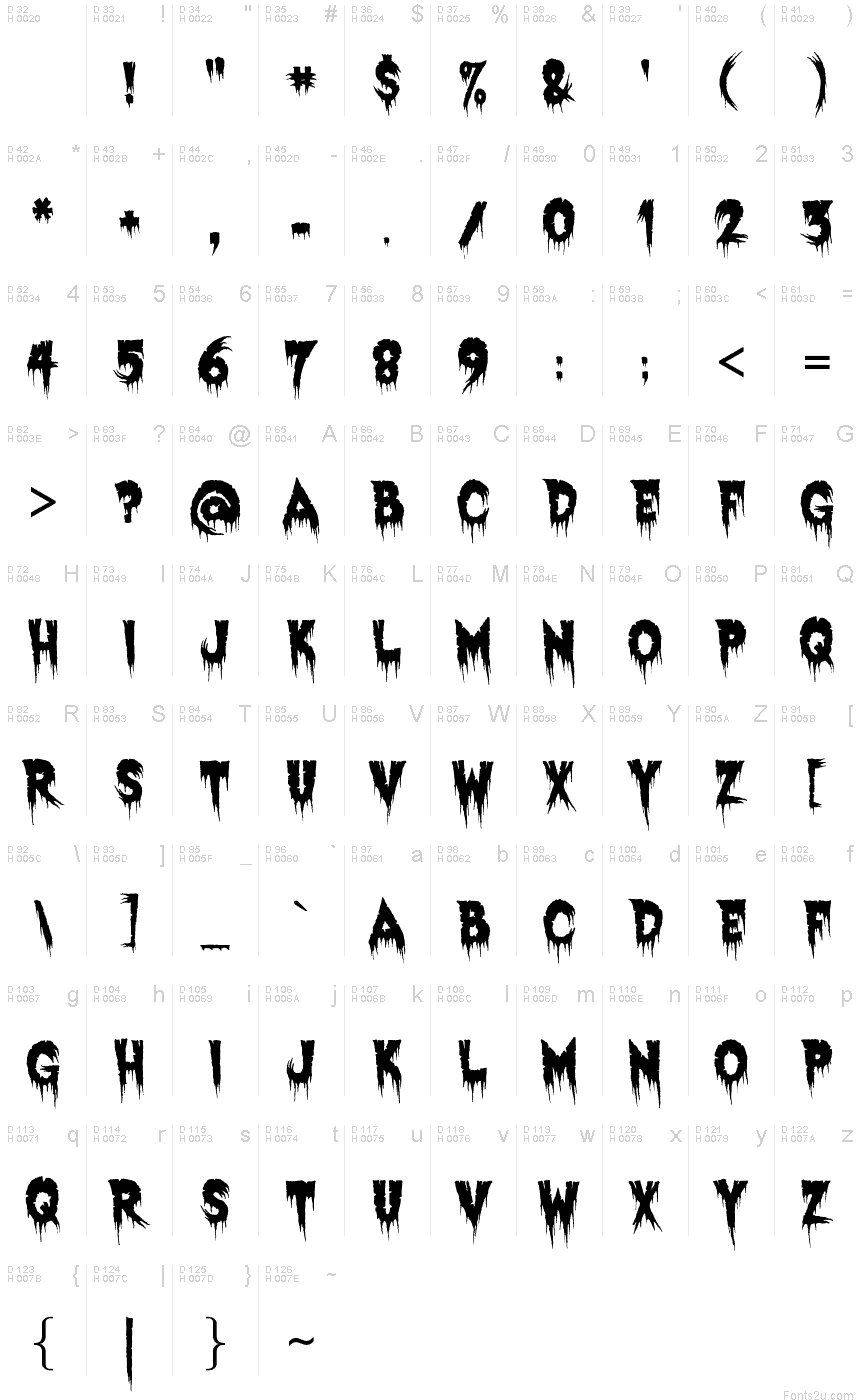
Exquisite Corpse by Chad Savage of Sinister Fonts is a free horror display font with tall, ragged capitals and a soaked, dripping silhouette. Uneven edges and long tapering trails make the letters look freshly smeared rather than neatly distressed. The broad shapes stay forceful beneath the torn surface.
Horror is the clear reference, making it suited to film posters and haunted-attraction signage with a raw practical-effects flavor. It also fits metal merchandise. For Halloween packaging and game graphics, the hanging streaks can merge with blood, slime, or decaying textures as part of the artwork.
Created in 2010 by hand lettering.
I've never done a classic, Creepshow-style drippy horror font, really. So this is me doing that.